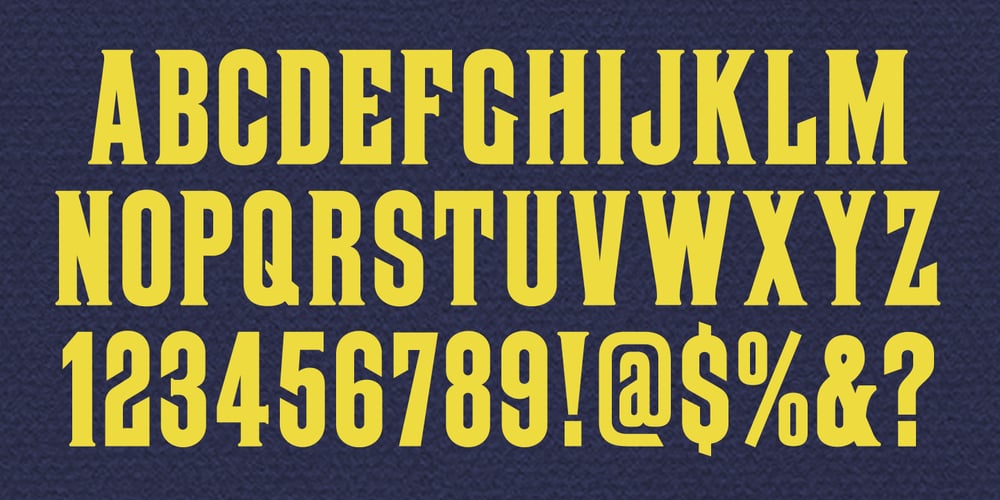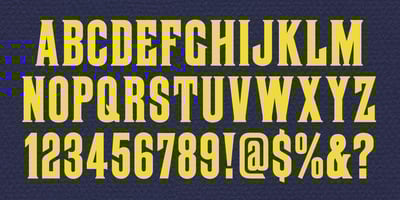
MPI No. 507 Font Family was designed by published by mpressInteractive. MPI No. 507 contains 1 styles and family package options. No. 507 is an elegant headline font with added angled flourishes. Its unique features are angled terminals, small, pointed serifs, and no contrast in stroke weight. It is similar to No. 506, designed by William H. Page & Company around 1890.